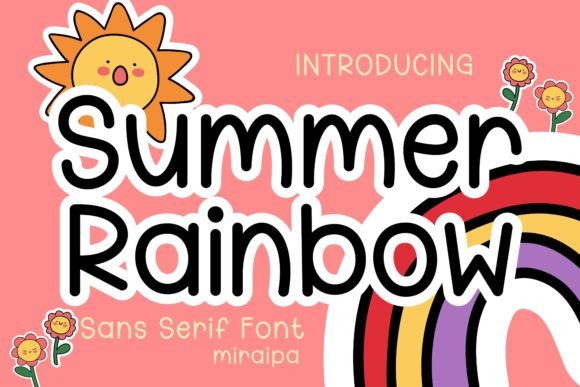
Summer Rainbow Font: A Playful and Charming Handwritten Sans Serif Font
Are you looking for a font that captures the essence of a warm summer day? Look no further than Summer Rainbow Font, a playful and charming handwritten sans serif font that is sure to brighten up any project. With its soft, rounded letterforms and smooth lines, Summer Rainbow conveys a sense of friendliness and approachability, making it perfect for a variety of applications.
The Perfect Font for Summer-Inspired Projects
Summer Rainbow Font is designed to evoke the feeling of a warm summer day, with its delicate curves and whimsical vibe. The font’s smooth lines and rounded letterforms create a carefree and playful atmosphere, making it perfect for projects that require a lighthearted and cheerful tone. Whether you’re designing a greeting card, a children’s book, or a summer-themed advertisement, Summer Rainbow Font is sure to bring a smile to your audience’s face.
Key Features of Summer Rainbow Font
- Playful and charming handwritten sans serif font: Summer Rainbow Font is a unique and eye-catching font that adds a touch of personality to any project.
- Soft, rounded letterforms: The font’s soft, rounded letterforms convey a sense of friendliness and approachability, making it perfect for projects that require a warm and welcoming tone.
- Smooth lines and delicate curves: The font’s smooth lines and delicate curves create a whimsical and carefree vibe, perfect for summer-inspired projects.
- High legibility: Despite its playful and charming nature, Summer Rainbow Font is highly legible, making it easy to read and understand.
Use Cases for Summer Rainbow Font
Summer Rainbow Font is a versatile font that can be used in a variety of applications, including:
- Greeting cards: The font’s playful and charming nature makes it perfect for greeting cards, especially those for summer-themed occasions like birthdays and graduations.
- Children’s books: The font’s whimsical and carefree vibe makes it perfect for children’s books, especially those that require a lighthearted and playful tone.
- Summer-themed advertisements: The font’s summer-inspired design makes it perfect for advertisements that require a cheerful and optimistic tone.
- Social media graphics: The font’s playful and charming nature makes it perfect for social media graphics, especially those that require a lighthearted and engaging tone.
Why Choose Summer Rainbow Font?
There are many fonts to choose from, but Summer Rainbow Font stands out for its unique and eye-catching design. Here are just a few reasons why you should choose Summer Rainbow Font for your next project:
- Unique and eye-catching design: Summer Rainbow Font is a one-of-a-kind font that adds a touch of personality to any project.
- Highly legible: Despite its playful and charming nature, Summer Rainbow Font is highly legible, making it easy to read and understand.
- Versatile: The font can be used in a variety of applications, from greeting cards to children’s books to summer-themed advertisements.
Tips for Using Summer Rainbow Font
Here are just a few tips for using Summer Rainbow Font in your next project:
- Use it for headings and titles: Summer Rainbow Font is perfect for headings and titles, especially those that require a playful and charming tone.
- Pair it with a simple font: To create visual interest, pair Summer Rainbow Font with a simple font for body text.
- Experiment with colors: Summer Rainbow Font looks great in a variety of colors, so don’t be afraid to experiment and find the perfect hue for your project.
- Use it to add personality: Summer Rainbow Font is a unique and eye-catching font that can add a touch of personality to any project.
Summer Rainbow Font is a playful and charming handwritten sans serif font that captures the essence of a warm summer day. With its soft, rounded letterforms and smooth lines, it’s perfect for projects that require a lighthearted and cheerful tone. Whether you’re designing a greeting card, a children’s book, or a summer-themed advertisement, Summer Rainbow Font is sure to brighten up any project and bring a smile to your audience’s face.